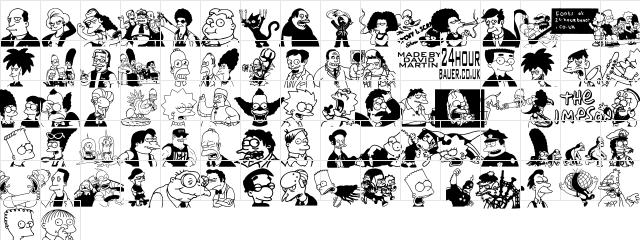
Simpsons Mmmm...Font Regular
Design Context for Simpsons Mmmm...Font Typeface
Simpsons Mmmm...Font is a composed and adaptable typeface that performs quietly and consistently across a wide range of design contexts.